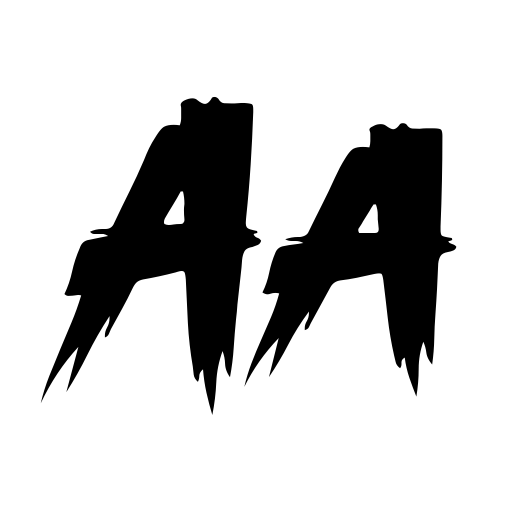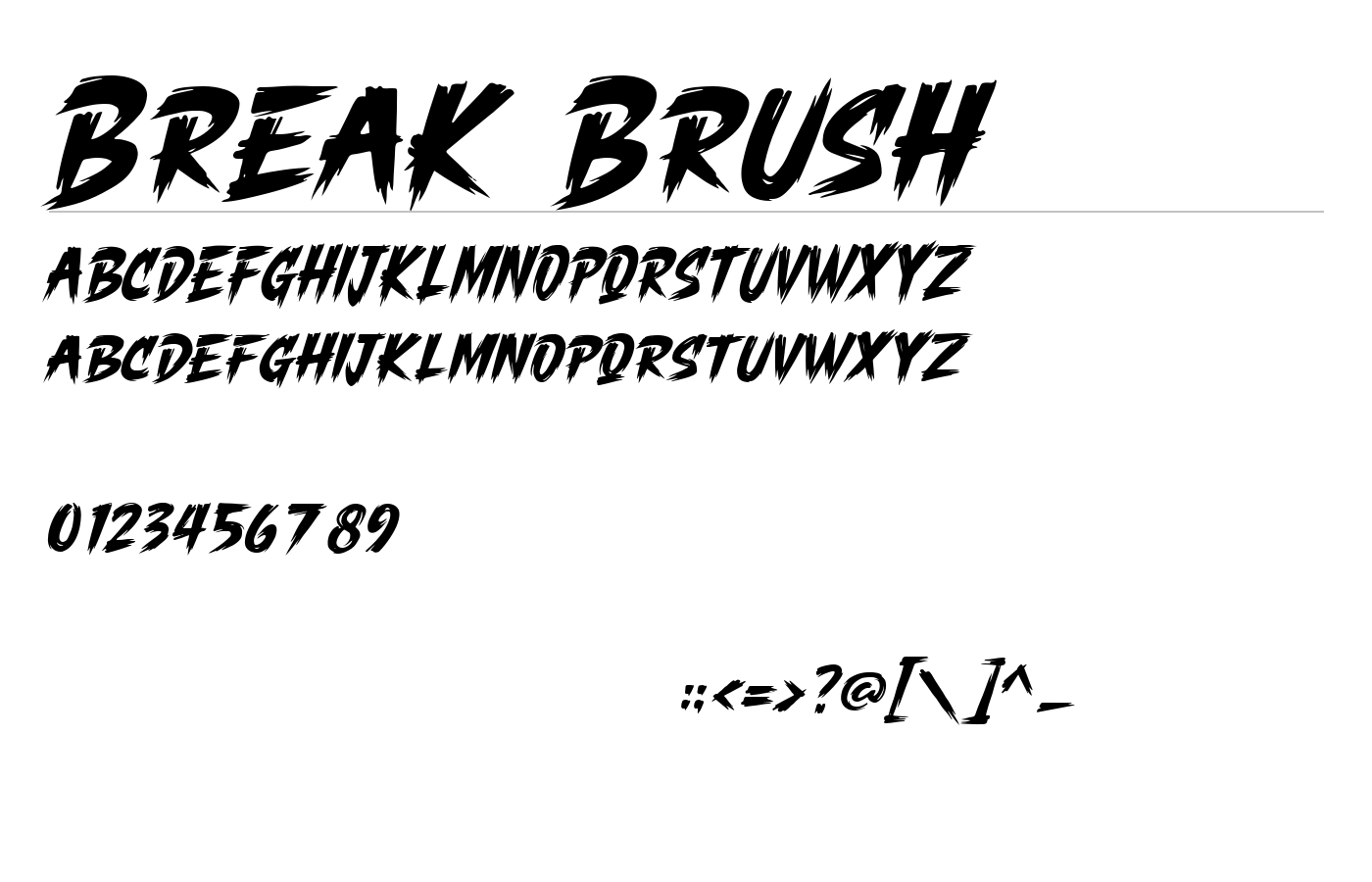
Break Brush is a bold, energetic brush script font with a dynamic, rough-edged texture that gives it a hand-painted, vibrant feel. Its slightly condensed letterforms combined with sharp, jagged strokes make it perfect for creating eye-catching headlines, posters, or branding that demands a strong, adventurous personality. This font works especially well in creative, casual, or urban-themed designs where a lively and expressive style is needed.
Break Brush Font
About Break Brush Font
| Font family | Break Brush Font |